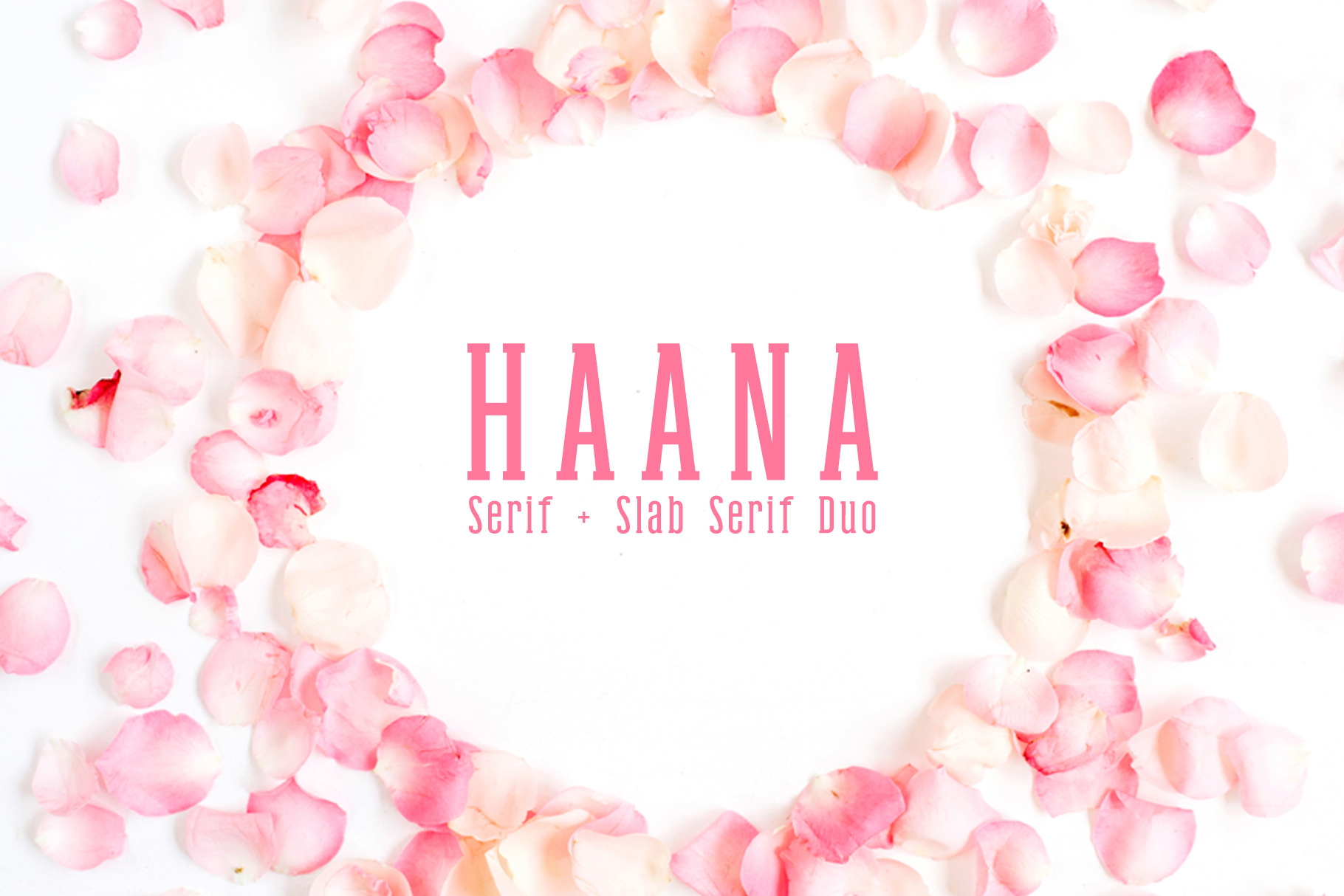
Haana Slab Serif Duo Font
Hanna Duo is a beautiful sans and slab font. It is suitable for wedding invitation, greeting cards, T-shirt, branding & logo projects, merchandise, social media posts, product packaging, or any design that you create.
- Font Weight: Regular and Outline
Haana Font Features:
- Uppercase Multilingual Letters
- Lowercase Multilingual Letters
- Font Weight: Regular
Ceona Font Features:
- Uppercase Multilingual Letters
- Lowercase Multilingual Letters